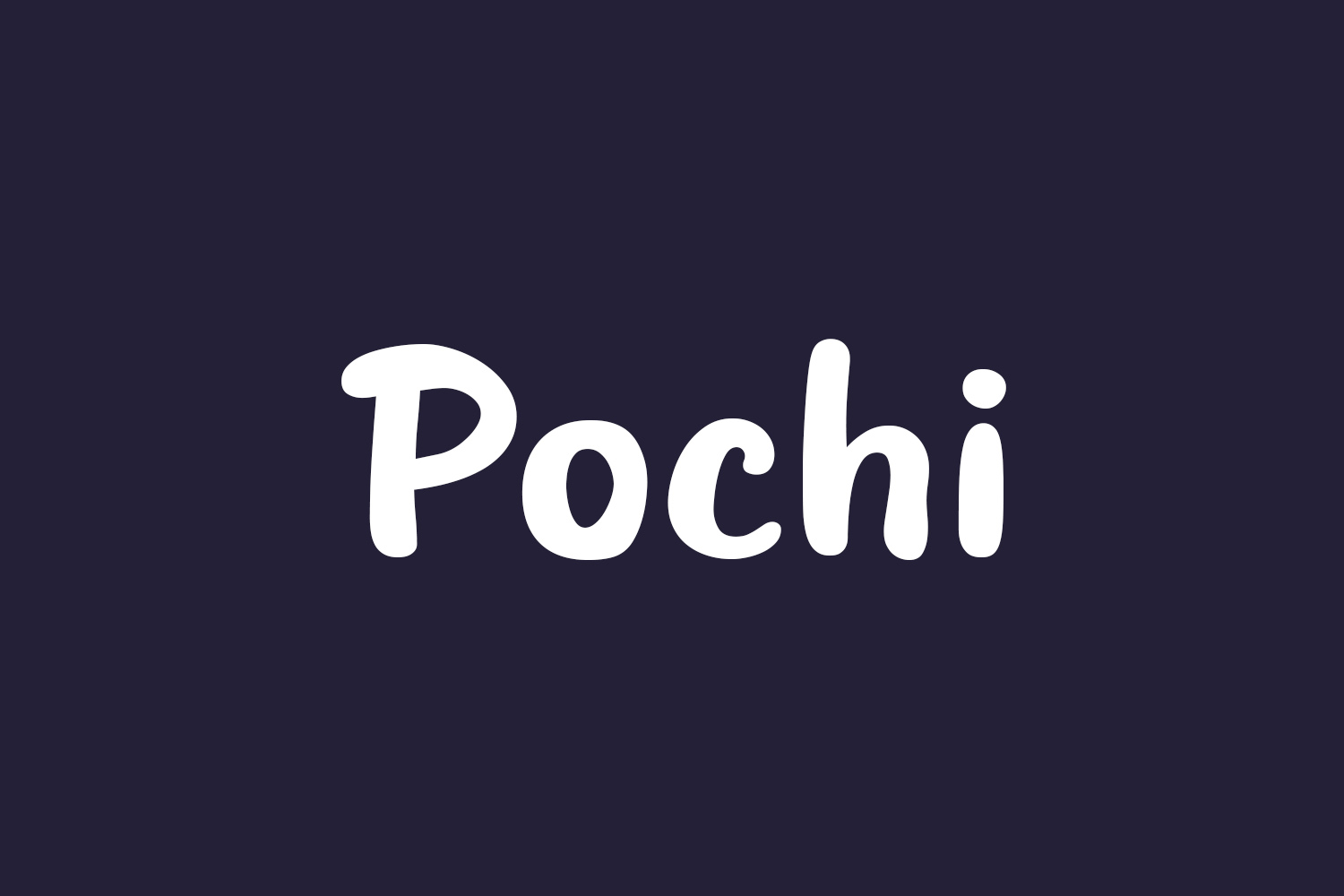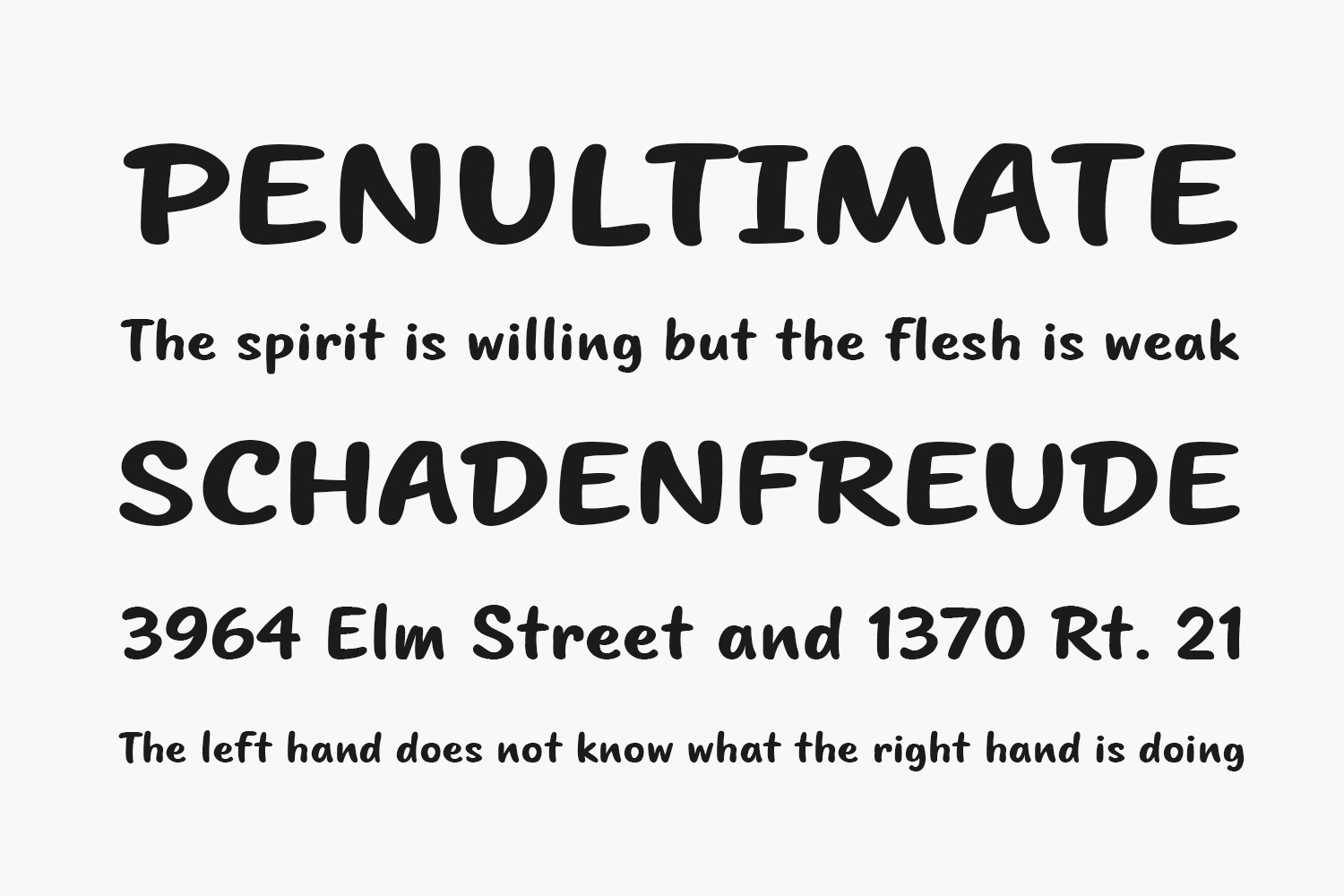
Pochi Free Font is a fun and playful paint brushed display font. Whether you are using it for cartoon-related designs, children’s games, quotes, titles, brand names, book covers, posters, or just any creation that requires a touch of joy, this font is a great choice. Pochi Free Font was designed by Emman Ludovice and is free for personal use only. Please purchase the full version for commercial use.